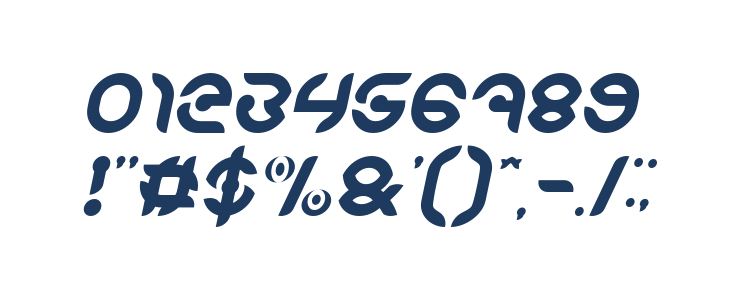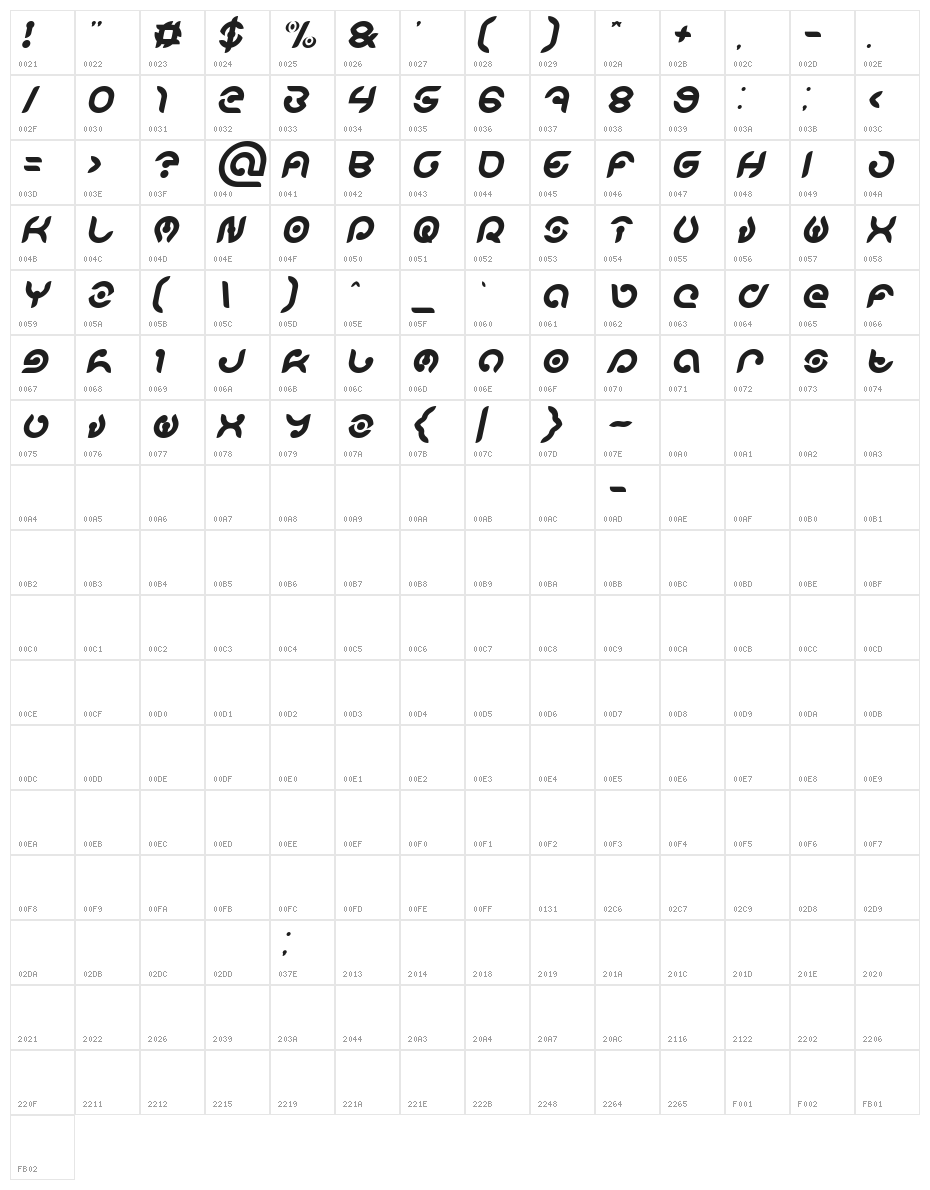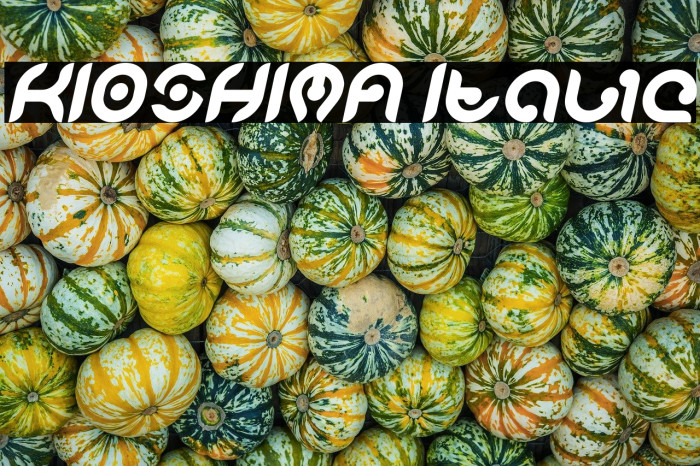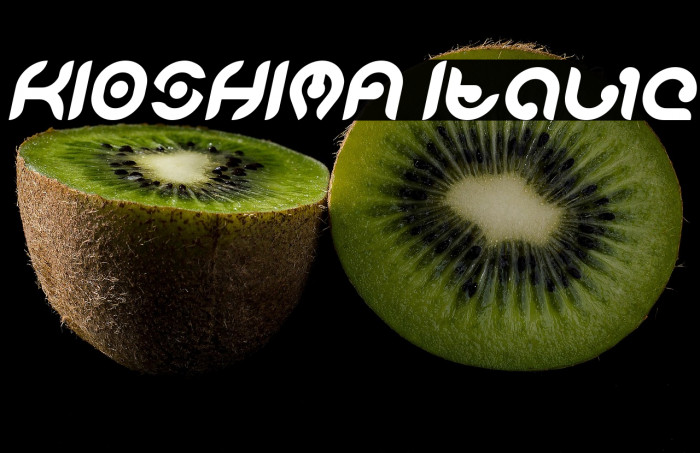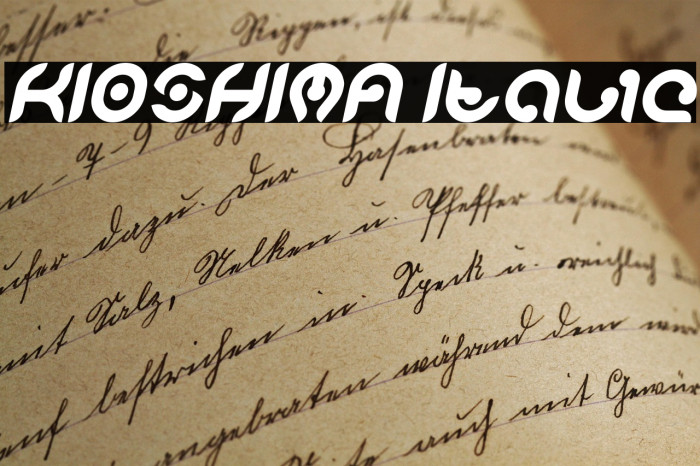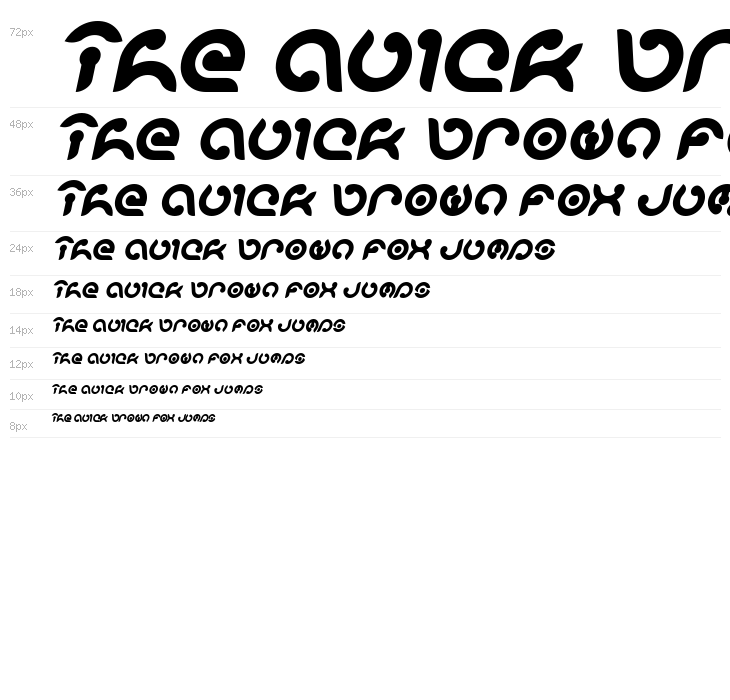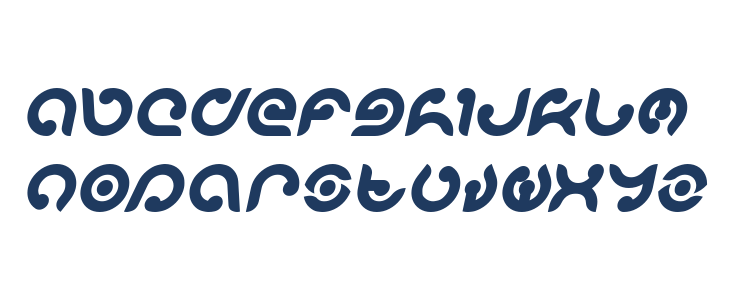
KIOSHIMA Italic Font
KIOSHIMA Italic Description
This font features a bold and dynamic style with a futuristic and modern flair. The characters are uniquely designed with thick, rounded strokes that create a sense of movement and energy. The italic slant adds to the dynamic feel, making it suitable for eye-catching designs. The uppercase and lowercase letters maintain a consistent style, with a playful yet structured appearance. Numbers and special characters are equally bold, ensuring a cohesive look across all text elements. The font's distinctiveness makes it ideal for projects that require a strong visual impact.
| Proposed Projects | Ideal for branding, posters, video game graphics, and futuristic-themed designs. |